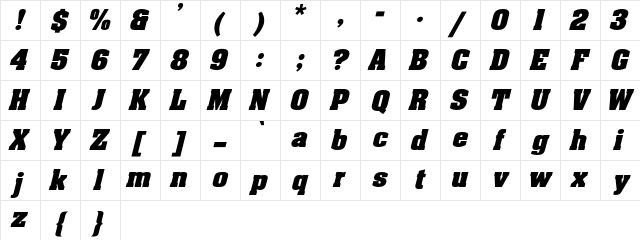
AaronBoldExpd Italic
Complete AaronBoldExpd Italic glyph index. Displaying only characters natively supported by AaronBoldExpd Italic font.
Design Context for AaronBoldExpd
AaronBoldExpd is a composed and adaptable typeface that performs quietly and consistently across a wide range of design contexts. The slanted form adds forward momentum and visual energy. Its bold stroke weight gives it real presence on the page.